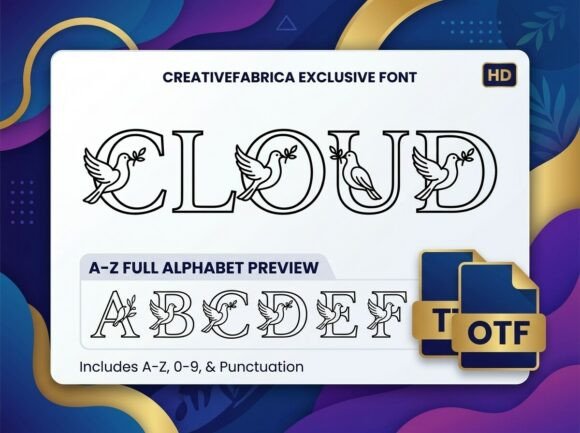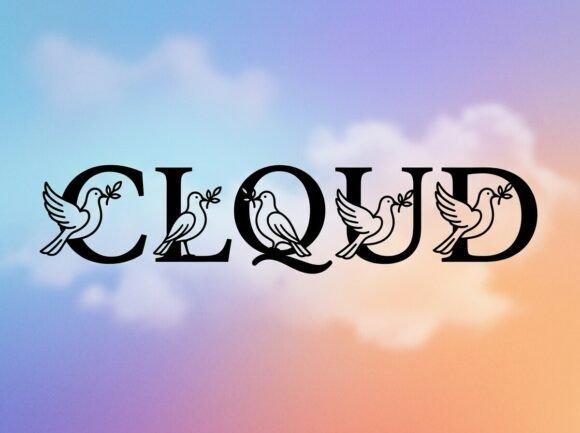
Discover the Serenity of Cloud Font: A Peaceful Display Typeface
In the world of typography, fonts play a crucial role in conveying emotions and messages. For designers and crafters seeking to spread a message of serenity, Cloud font is an exceptional choice. This peaceful display typeface embodies a “graceful-and-harmonious” soul, making it perfect for projects that require a calm and compassionate tone.
Clean and Elegant Design
Cloud font features clean, hollow letterforms that exude a sense of simplicity and elegance. The design is characterized by rhythmic dove-and-olive-branch illustrations that interact seamlessly with each character, creating a harmonious visual experience. The light graphic weight of Cloud font adds to its airy and hopeful personality, making it an excellent choice for a variety of design projects.
Ideal for Inspirational and Non-Profit Projects
Cloud font is specifically designed for independent non-profit branding, inspirational quote graphics, wellness center identities, and high-impact “calm-and-compassionate” social media headers. Its peaceful and serene nature makes it an ideal choice for projects that aim to promote positivity, hope, and wellness.
Key Features of Cloud Font
- Clean and hollow letterforms: Cloud font features a unique design with clean and hollow letterforms that create a sense of simplicity and elegance.
- Rhythmic illustrations: The font includes rhythmic dove-and-olive-branch illustrations that interact seamlessly with each character, adding a touch of harmony and serenity.
- Light graphic weight: Cloud font has a light graphic weight that contributes to its airy and hopeful personality.
- Hopeful personality: The font’s design and features evoke a sense of hope and positivity, making it perfect for inspirational and non-profit projects.
Use Cases for Cloud Font
Cloud font can be used in a variety of design projects, including:
- Inspirational quote graphics: Cloud font is perfect for creating inspirational quote graphics that promote positivity and hope.
- Wellness center identities: The font’s peaceful and serene nature makes it an excellent choice for wellness center identities and branding.
- Non-profit branding: Cloud font is ideal for independent non-profit branding, helping organizations to convey a sense of compassion and empathy.
- Social media headers: The font’s light graphic weight and hopeful personality make it perfect for high-impact “calm-and-compassionate” social media headers.
Why Choose Cloud Font?
Cloud font offers a unique combination of elegance, simplicity, and hopefulness, making it an exceptional choice for designers and crafters seeking to create peaceful and inspiring designs. By choosing Cloud font, you can:
- Convey a sense of serenity: Cloud font’s design and features evoke a sense of calmness and serenity, helping you to convey a peaceful message.
- Promote positivity: The font’s hopeful personality and light graphic weight make it perfect for promoting positivity and hope.
- Stand out: Cloud font’s unique design and features help you to create designs that stand out and grab attention.
Cloud font is a peaceful display typeface that captures the essence of serenity and harmony. Its clean and elegant design, rhythmic illustrations, and light graphic weight make it perfect for a variety of design projects. Whether you’re working on inspirational quote graphics, wellness center identities, or non-profit branding, Cloud font is an excellent choice. By choosing Cloud font, you can convey a sense of calmness, promote positivity, and create designs that stand out.